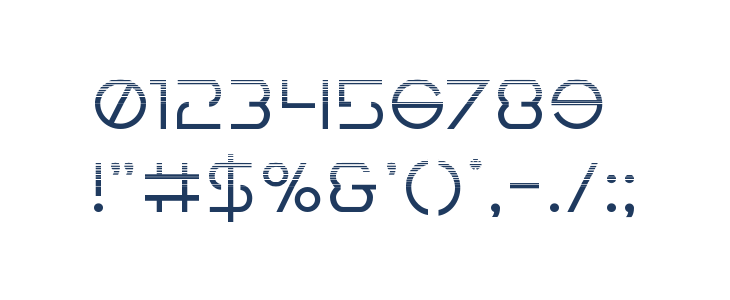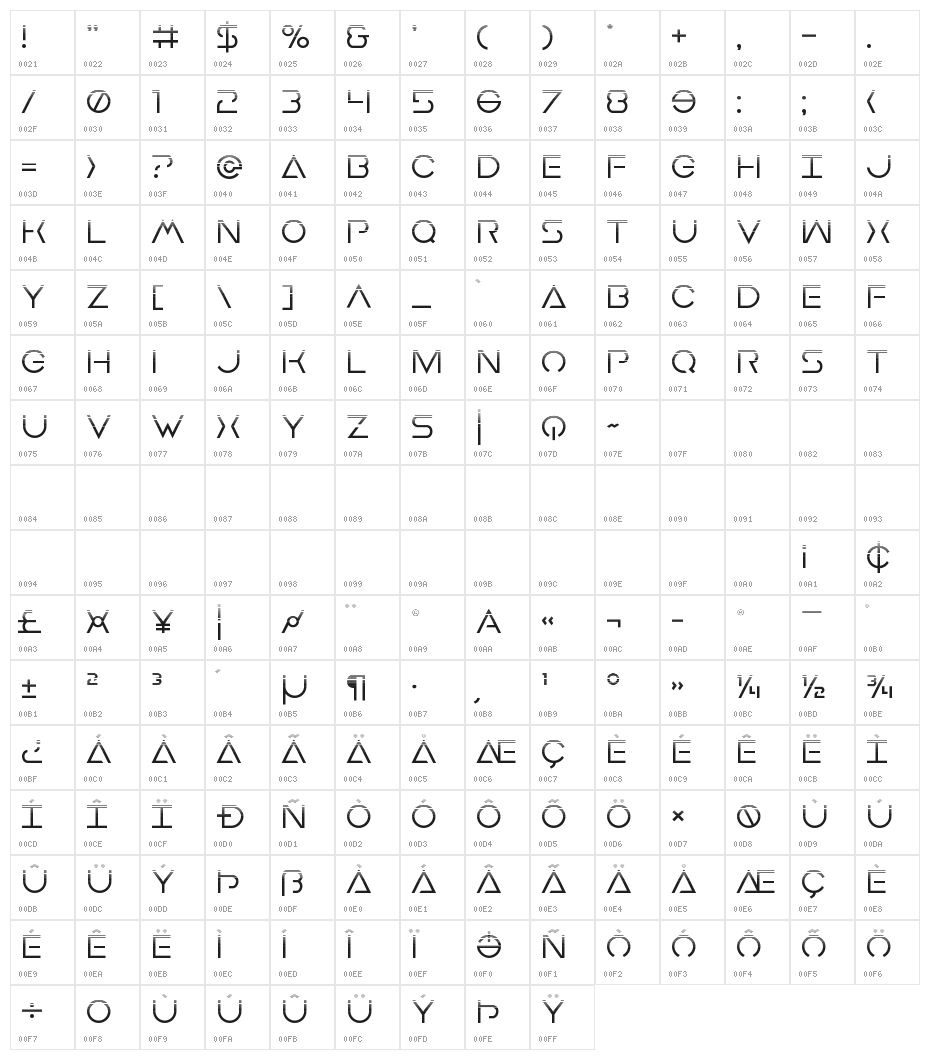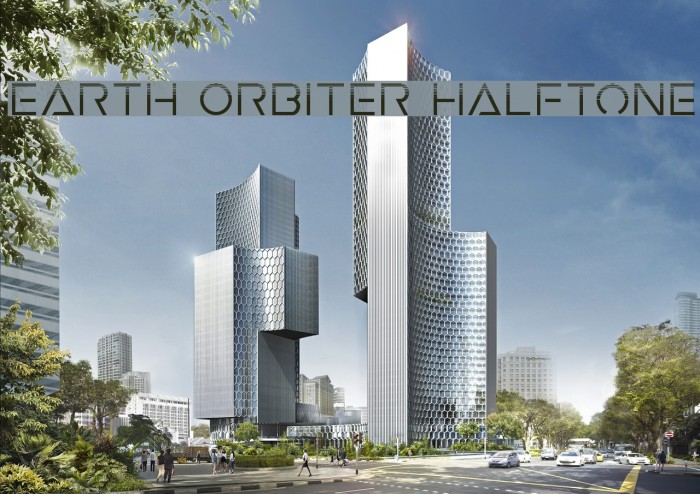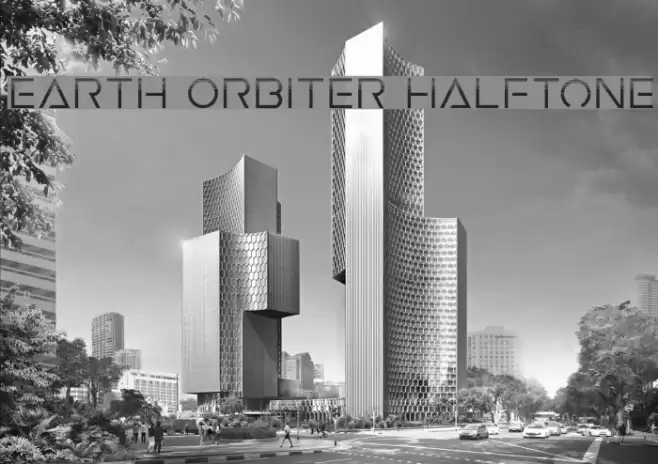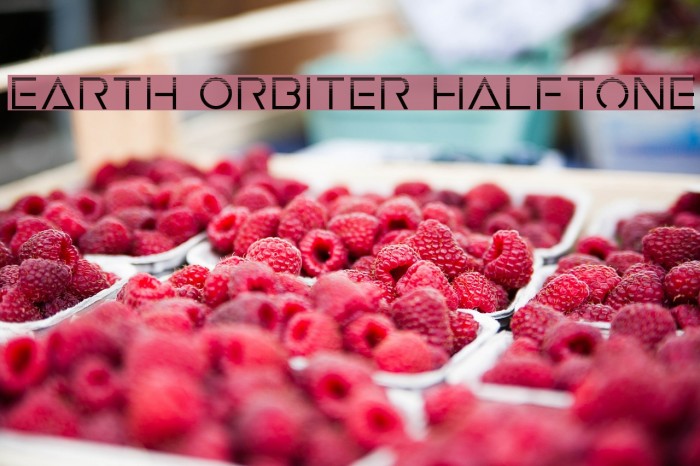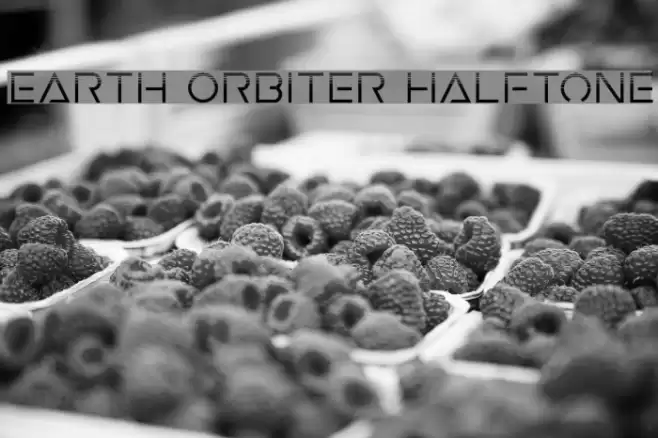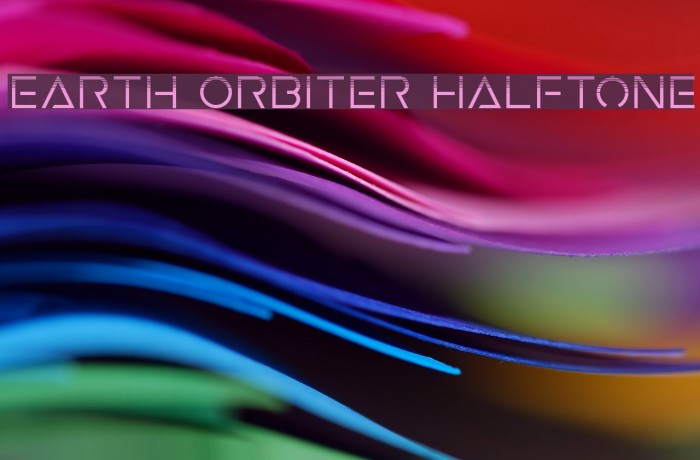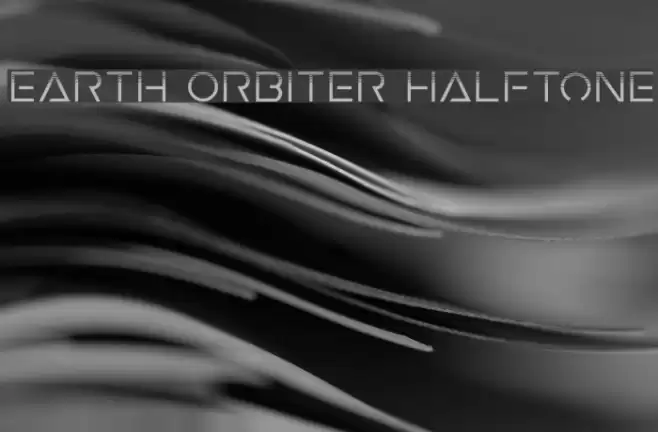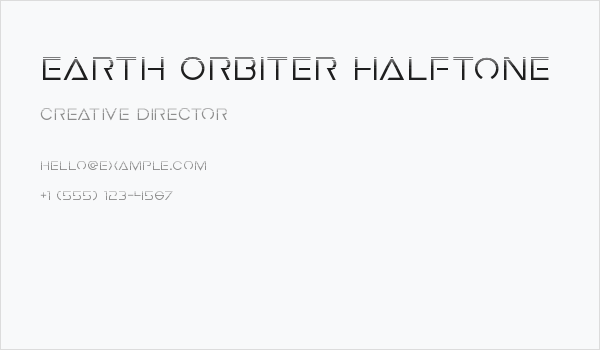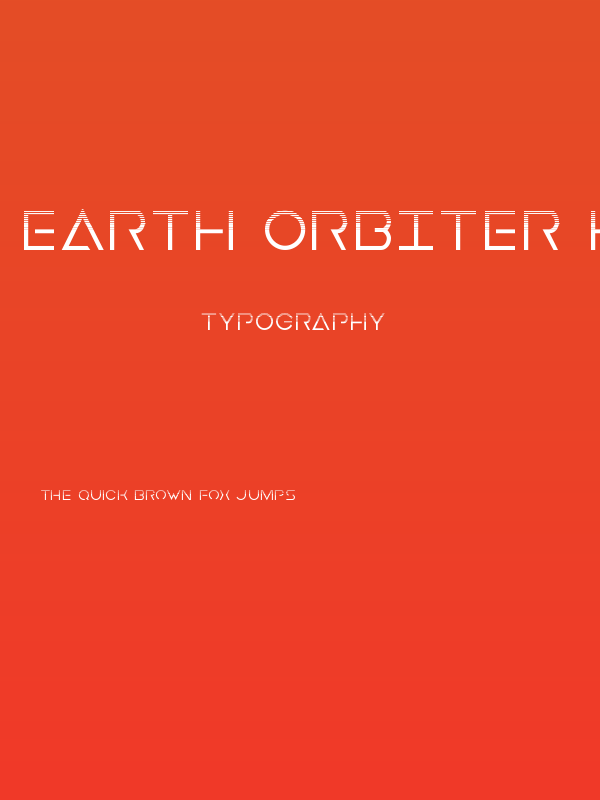
Earth Orbiter Halftone Font
Earth Orbiter Halftone Description
This font features a futuristic and geometric design with a halftone effect that gives it a unique, digital appearance. The characters are constructed with clean, straight lines and sharp angles, creating a sense of precision and modernity. The halftone pattern adds texture and depth, making it stand out for creative projects. The uppercase and lowercase letters maintain a consistent style, while the numerals and special characters are designed to complement the overall aesthetic. This font is ideal for projects that require a contemporary and tech-inspired look.
| Proposed Projects | Ideal for tech branding, digital art, sci-fi themed designs, and modern advertising. |